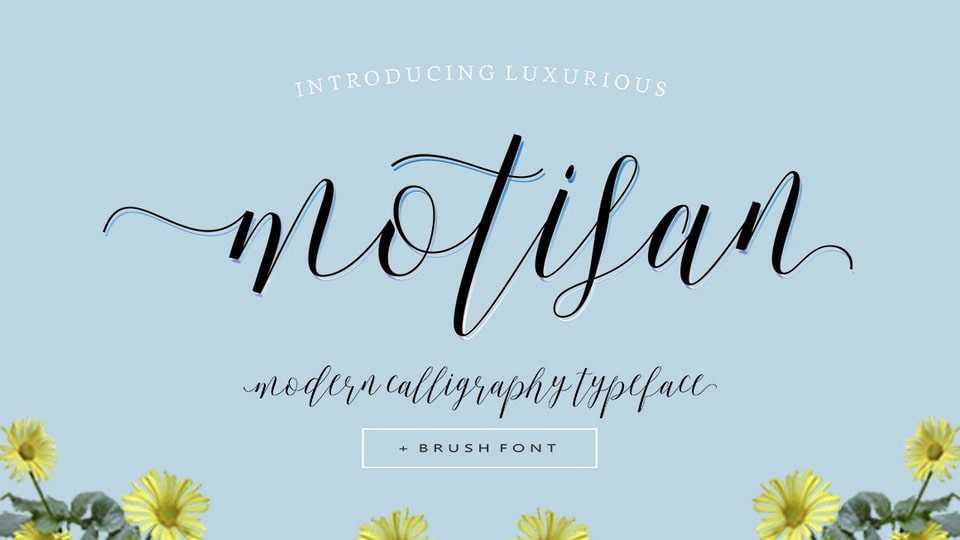
Download Motisan font, a beautiful and refined script typeface. It has a classy, elegant and modern look that can be used for logos, branding, invitations and so on.